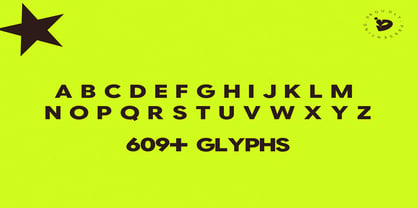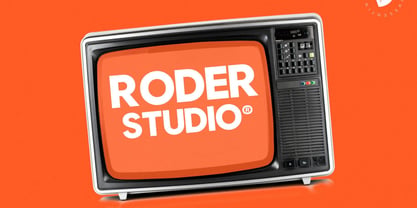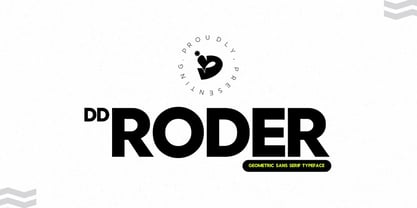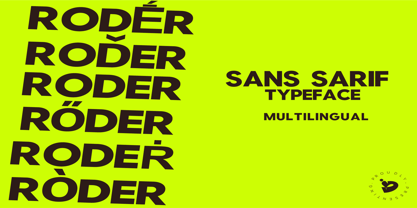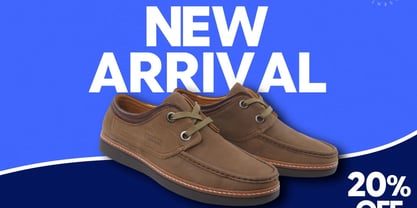
RODER is a modern geometric sans serif font family designed with a clean weight-based system. Built for branding, UI design, and corporate identity, it delivers clarity, balance, and professional precision without unnecessary stylistic distractions.
Perfect for logos, interfaces, presentations, and editorial layouts.
Feature:
- 609+ glyphs
- Organized Naming & Weight Classification
- 96+ Language Support
- Multilingual Characters
Roder